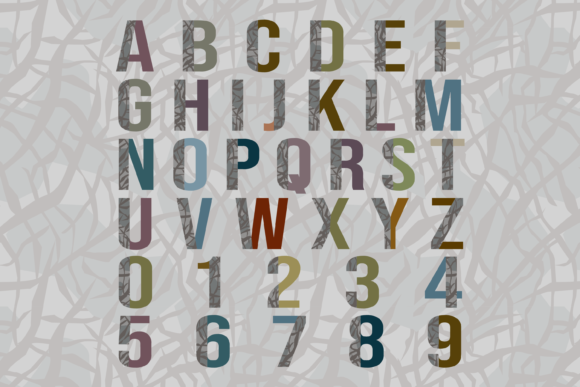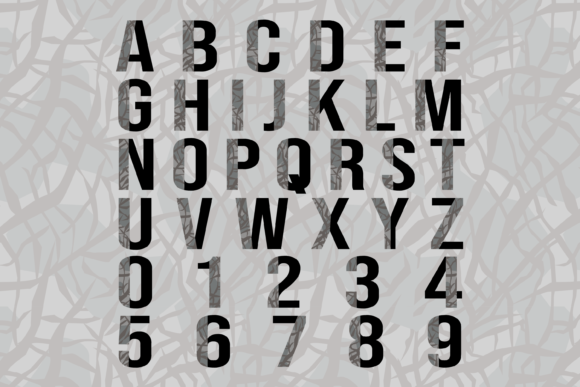
Introducing Elephant Font: A Perfect Duo of Black and Color Styles
Are you a designer or crafter looking for a unique and versatile font to add a special touch to your creations? Look no further than Elephant Font, a beautifully designed color font consisting of two complementary styles: black and color. In this article, we’ll explore the features and benefits of Elephant Font, and how you can use it to elevate your designs and crafts.
What is Elephant Font?
Key Features of Elephant Font
- Dual Styles: Elephant Font comes in two styles: black and color. The black style provides a sleek and modern look, while the color style adds a pop of vibrancy to your designs.
- Color Font: Elephant Font is a color font, which means it can be used to create stunning multi-colored designs with ease.
- Opentype-SVG: Elephant Font is an Opentype-SVG font, which provides a high level of detail and precision.
How to Use Elephant Font
Elephant Font is incredibly easy to use, and can be incorporated into a wide range of design and crafting projects. Here are a few ideas to get you started:
- Custom Designs: Use Elephant Font to add a personal touch to your custom designs, such as logos, brochures, and business cards.
- DIY Crafts: Add a professional touch to your DIY crafts, such as handmade cards, scrapbook pages, and iron-on designs.
Tips and Tricks for Getting the Most Out of Elephant Font
To get the most out of Elephant Font, here are a few tips and tricks to keep in mind:
- Experiment with Different Colors: Don’t be afraid to experiment with different color combinations to find the perfect look for your design.
- Mix and Match Styles: Try mixing and matching the black and color styles to create a unique and eye-catching design.
- Use with Other Fonts: Elephant Font can be paired with other fonts to create a stunning visual effect.
Elephant Font is a versatile and beautiful color font that is perfect for designers and crafters looking to add a special touch to their creations. With its dual styles, compatibility with popular design software, and ease of use, Elephant Font is an ideal choice for a wide range of projects. Whether you’re a seasoned designer or a DIY crafter, Elephant Font is sure to become a favorite in your font collection.